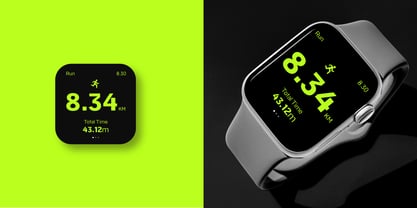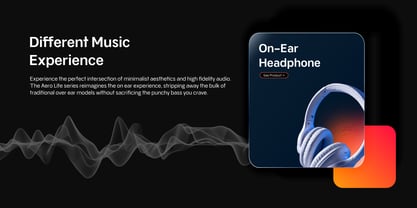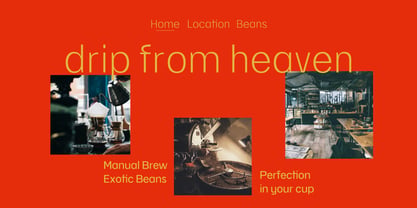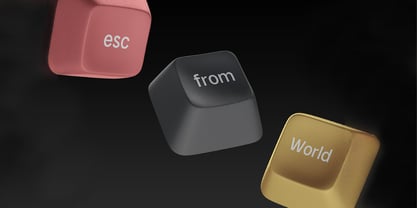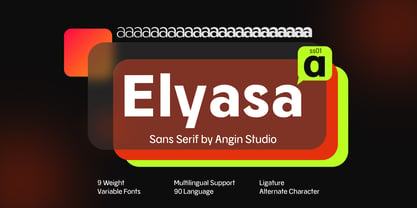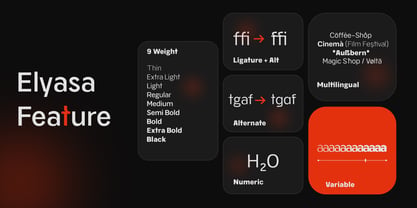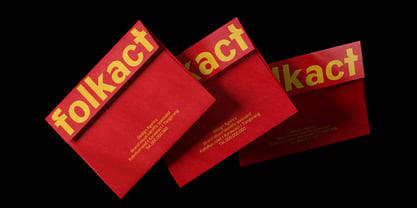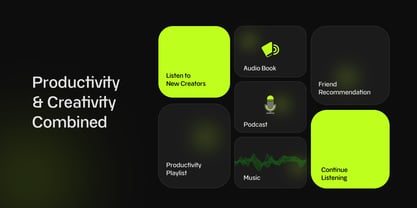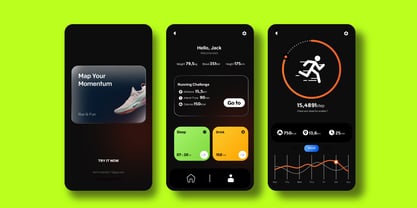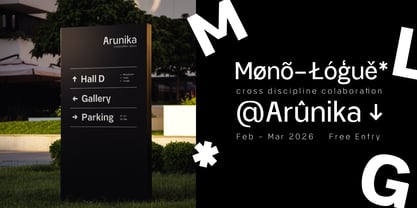
Elyasa Pro Variable
La familia tipográfica Elyasa Pro Variable fue diseñada por Ahmad Aswin, David Novrian y publicada por Angin Studio. Elyasa Pro Variable contiene 1 estilos. Más información sobre esta familia
While some strive to be the centre of attention, Elyasa is designed to be the stage. We moved away from "type as an art" and toward "type as utility" acting as a silent partner for designers that prioritize the hierarchy of your project over its own ego. In a world of expressive, Elyasa offers a clean, minimalist sanctuary. It is sans serif engineered for absolute clarity, ensuring that your message remains the focal point while providing a neutral, ultra legible foundation. Because precision is highest mountain to climb, Elyasa is built with integrated Variable Technology, You no longer feels too “light” or too "Bold". You now have all control over the font’s visual density, allowing you to dial in the exact weight required to balance your composition. Stop fighting with your fonts and start building on a better foundation. Elyasa doesn’t just fill space, it supports your work, maintains your hierarchy, and never gets in the way of a great design.